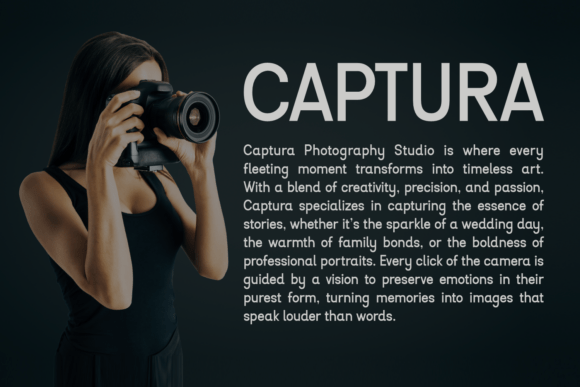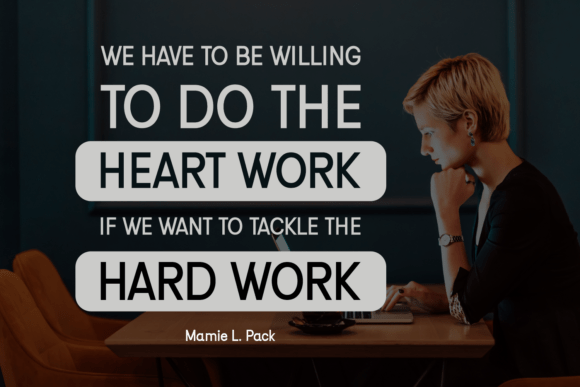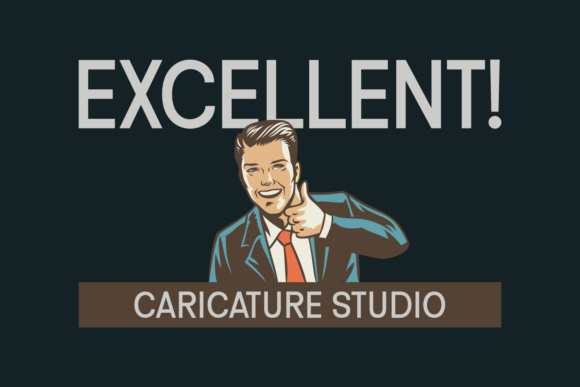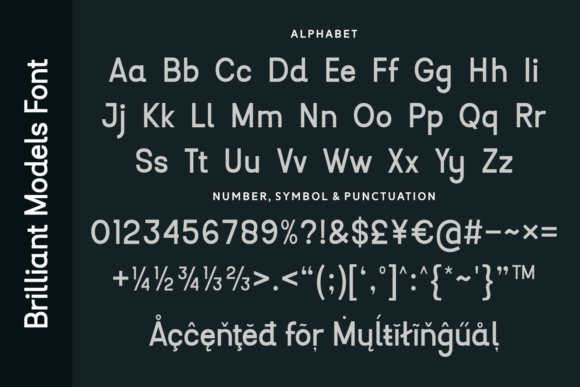
The Perfect Blend of Style and Versatility: Brilliant Models Font
Have you ever been stuck on a design project, scrolling through font options, and finally found ‘the one’? It’s that moment when everything falls into place, and your creative vision comes to life. For many designers, this moment is what makes all the hard work worth it. And for those who have discovered the Brilliant Models Font, this moment becomes a reality.
Brilliant Models Font is a sleek and modern sans serif typeface designed to radiate confidence and style. Its clean lines, rounded edges, and balanced proportions make it perfect for a wide range of design projects, from fashion branding to editorials and social media. Whether you’re looking for a headline font or a body text font, Brilliant Models Font is an ideal choice that blends elegance with versatility.
Brilliant Models Font Key Features
- Font Family: Brilliant Models
- Unique Characteristics: Elegant, modern design with a unique blend of geometric and organic shapes
Designer Review: Brilliant Models Font
I recently had the chance to work with the Brilliant Models Font, and I must say it’s a mixed bag. Here are my thoughts:
- Clean and Modern Design – The font has a sleek, modern look that’s perfect for tech, business, and minimalist designs.
- Good Legibility – The font is easy to read, even at smaller sizes, making it a great choice for body text and headings.
- Customization Options – The font comes with a range of weights and styles, allowing for a lot of creative flexibility.
- Limited Character Set – The font lacks some special characters and symbols, which can be a problem for designs that require a wide range of glyphs.
- No Italic Styles – While the font has bold and light styles, it doesn’t offer italic variations, which can limit its use in certain contexts.
- Not Ideal for Handwritten Text – The font’s digital, machine-made feel makes it less suitable for designs that require a more organic, handwritten look.
While the Brilliant Models Font has its strengths, its limitations hold it back from being a truly versatile and reliable choice. It’s a great option for modern, tech-focused designs, but may not be the best fit for more creative or complex projects.
Tips for Getting the Most Out of Brilliant Models Font
Here are some tips to help you get the most out of Brilliant Models Font:
- Use Brilliant Models Font to create a cohesive brand identity across multiple designs.
- Combine Brilliant Models Font with other fonts to create a unique and engaging visual style.
Common Use Cases for Brilliant Models Font
Brilliant Models Font is ideal for:
- Designing logos and branding materials.
- Creating infographics and data visualizations.
- Developing marketing materials, such as bro
Open Sans is a clean and modern sans-serif font designed by Steve Matteson. It’s ideal for use in digital products, such as apps and websites, where readability is crucial.
Compared to Brilliant Models Font, Open Sans is more versatile and has a wider range of applications. While both fonts are modern and clean, Open Sans has a more neutral tone, making it suitable for a broader range of designs.
Lato is a sans-serif font designed by Łukasz Dziedzic. It’s a great choice for use in headings and titles, where a touch of elegance is needed. Lato is also highly readable, making it suitable for body text.
Lato has a more rounded feel compared to Brilliant Models Font, which makes it more suitable for designs that require a softer look. However, Lato lacks the bold and condensed weights of Brilliant Models Font.
Montserat is a sans-serif font designed by Julieta Ulanovsky. It’s inspired by the urban environment of Buenos Aires and features a geometric, industrial feel. Montserrat is ideal for use in headings and titles, where a strong, modern look is needed.
What is the recommended font size and line height for Brilliant Models Font?
The recommended font size for Brilliant Models Font is between 12pt and 24pt. For optimal readability, we recommend a line height of 1.2 to 1.5 times the font size. This will ensure your text is clear and legible across various devices and screen resolutions.